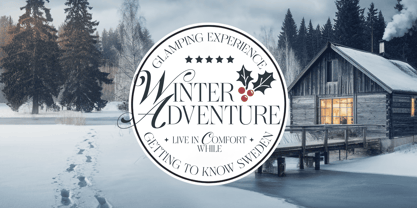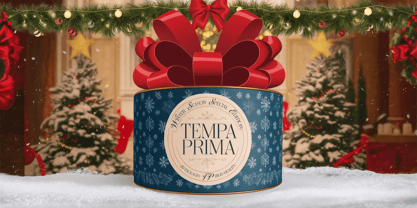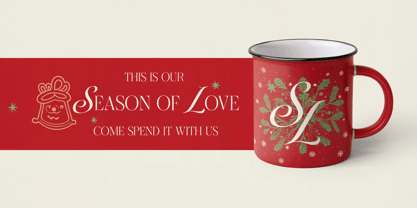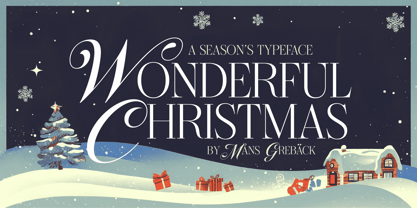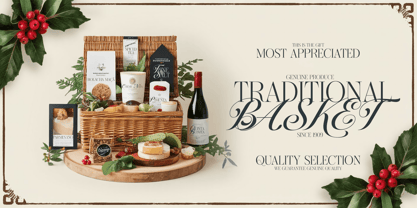
Wonderful Christmas
by Mans Greback
The Wonderful Christmas Font Family was designed by Måns Grebäck and published by Mans Greback. Wonderful Christmas contains 1 styles. More about this family
Wonderful Christmas is a luxurious and festive typeface that blends script and serif styles into a harmonious celebration of design. The uppercase letters feature ornate, flowing script capitals, bringing a sense of grandeur and sophistication to your text. Meanwhile, the lowercase set offers refined serif capitals, creating a striking visual contrast while maintaining a cohesive aesthetic.
With its fine details and delicate lines, this font radiates elegance, making it perfect for occasions that demand a touch of class and beauty. The interplay of script and serif styles ensures versatility, adding charm to holiday greetings, wedding invitations, or any project where refinement is key.
The font is built with advanced OpenType functionality and guaranteed top-notch quality, containing stylistic and contextual alternates, ligatures, and more automatic and manual features; all to give you full control and customizability.
Wonderful Christmas is crafted with designer Mans Greback's precision, ensuring every curve and serif reflects the highest standard of artistry.